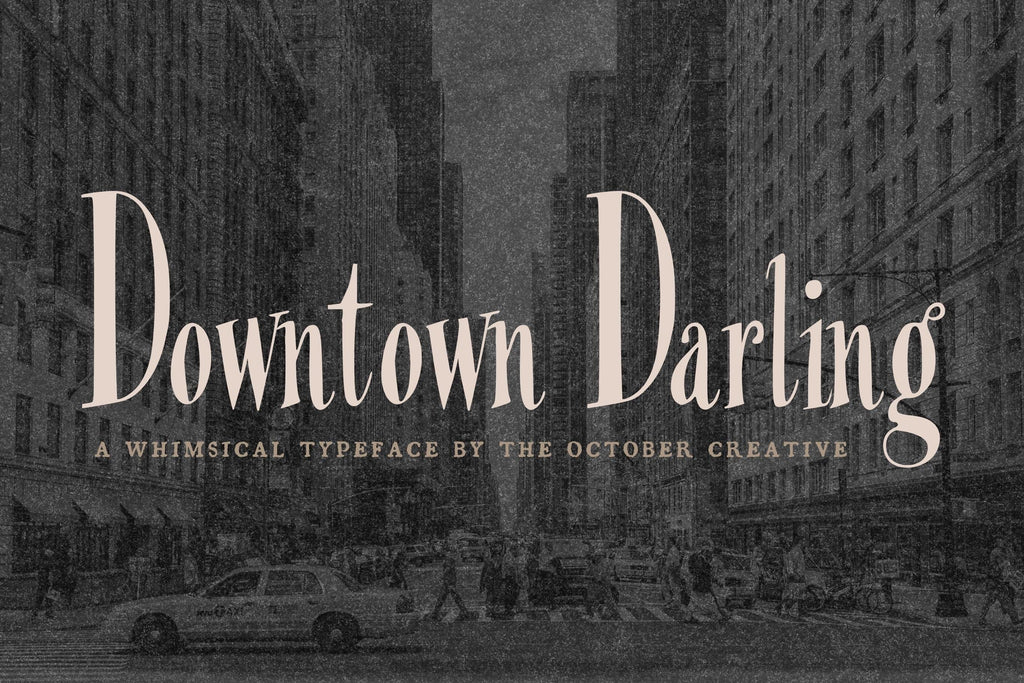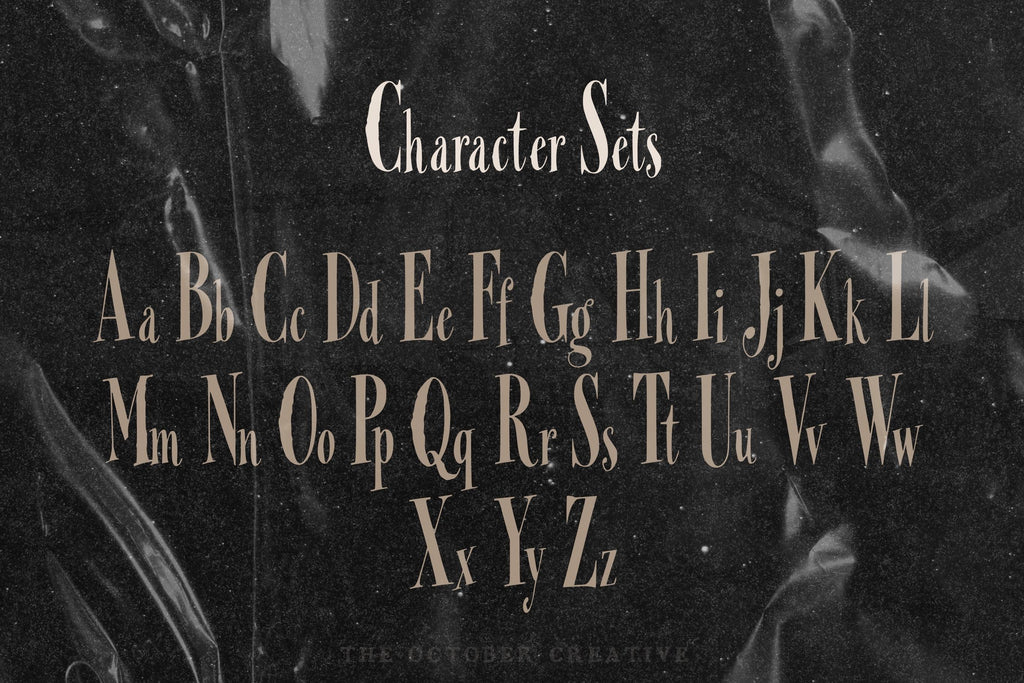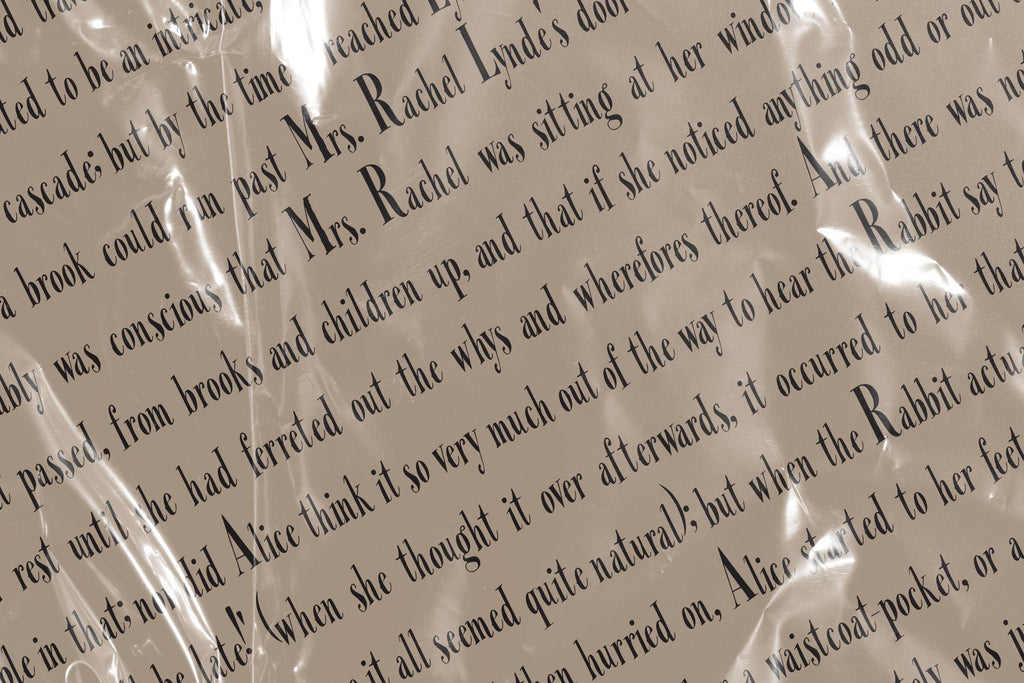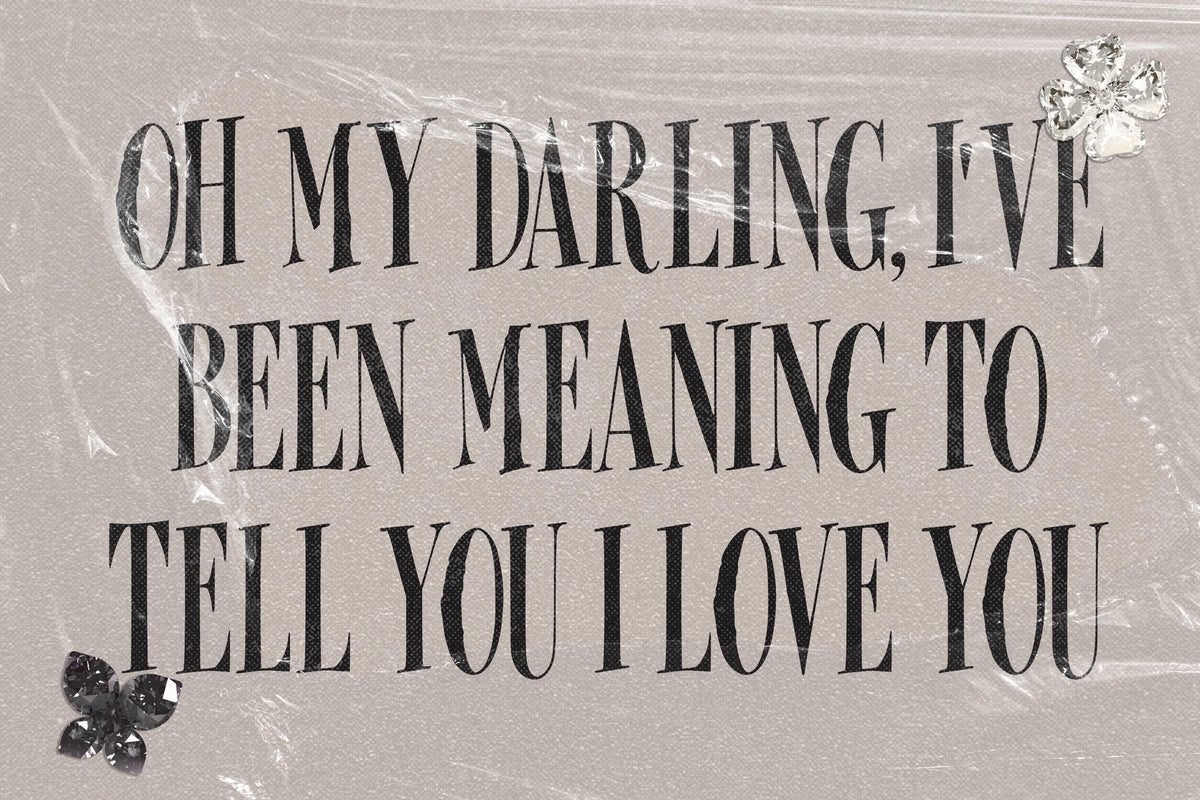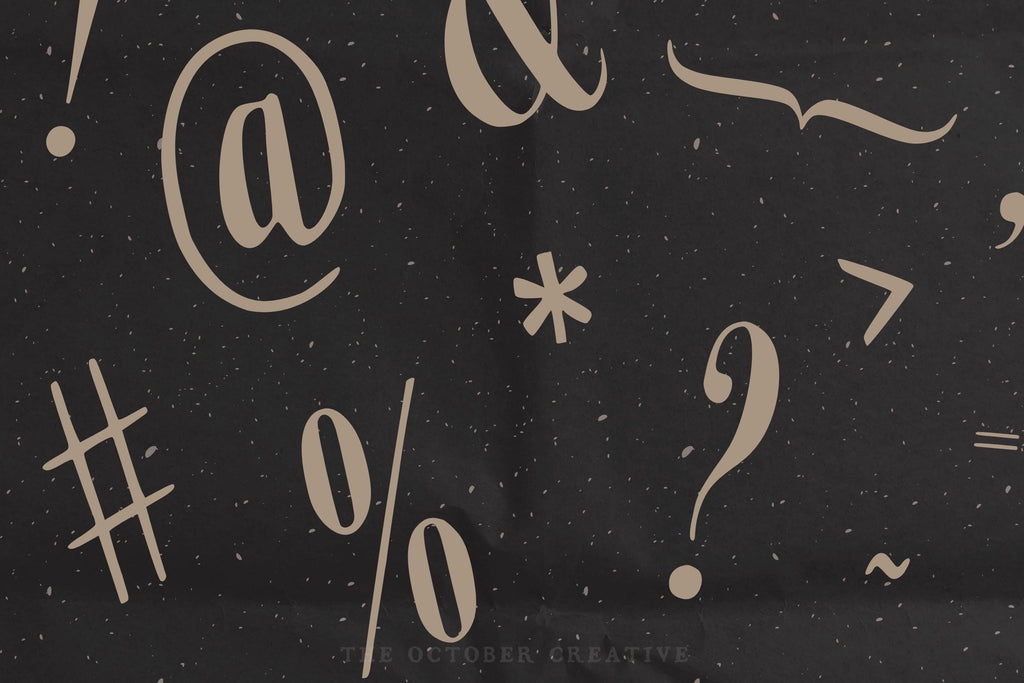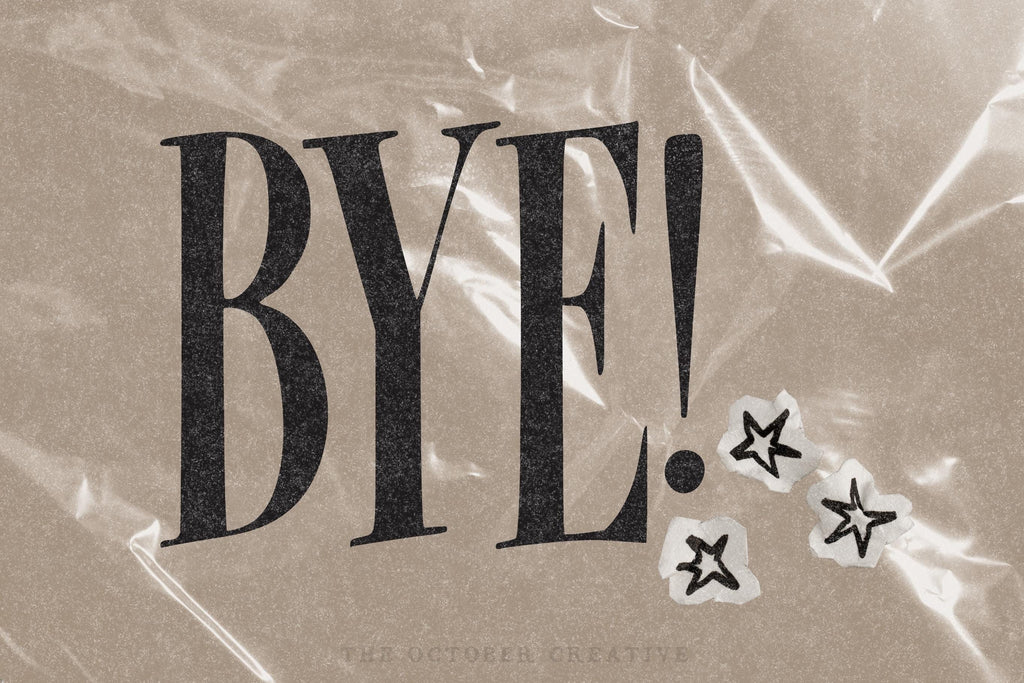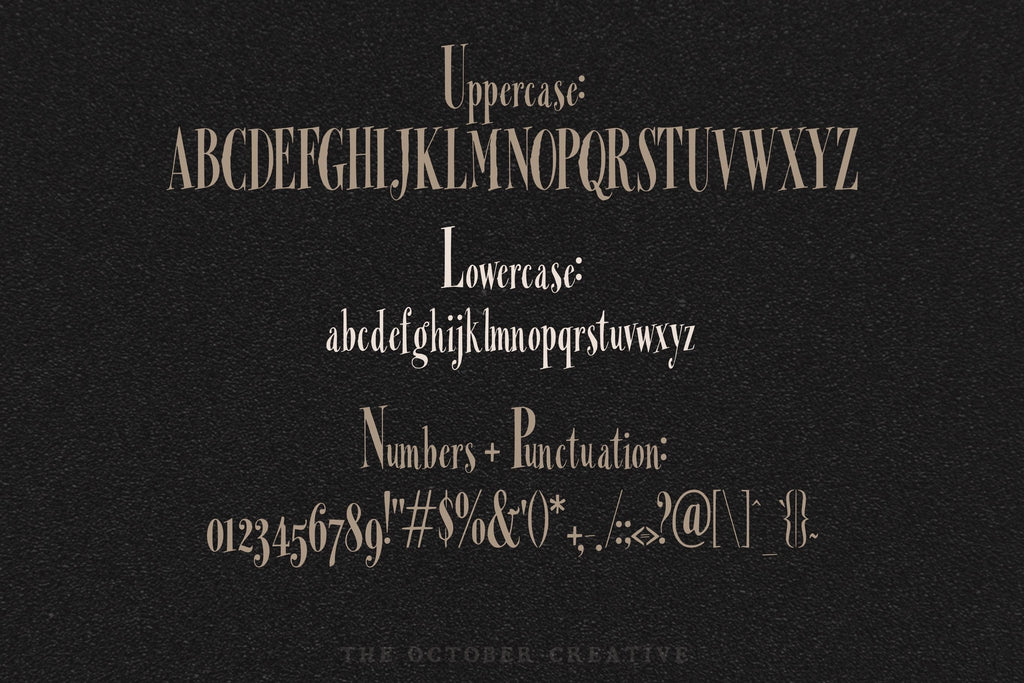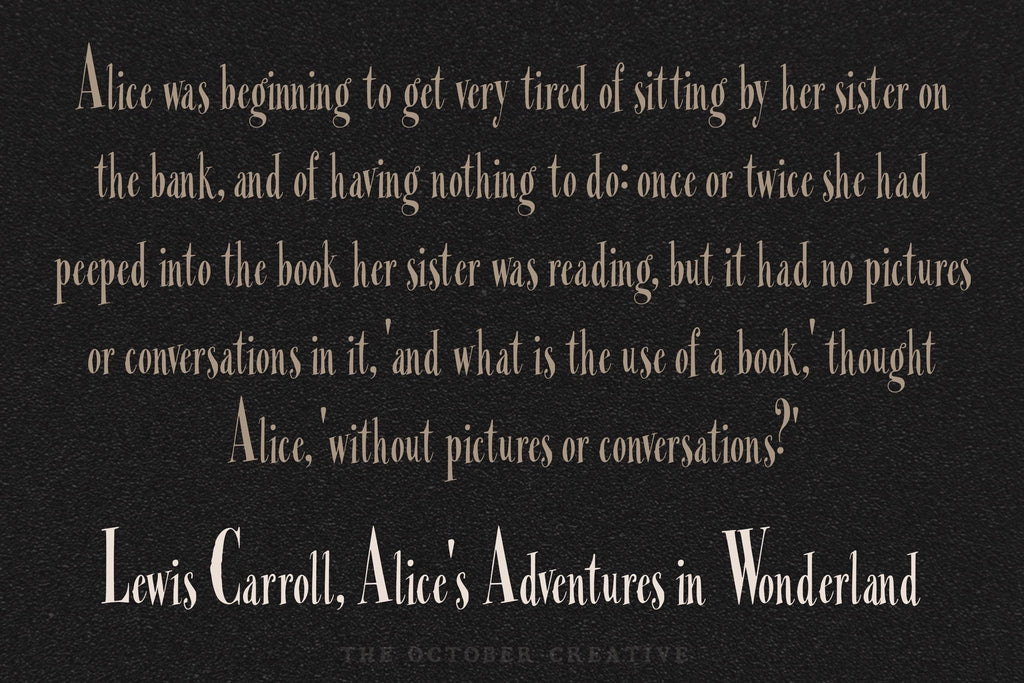
Downtown Darling Font
Downtown Darling is a condensed Art Deco serif with high contrast between its thick and thin strokes. It has an old New York editorial look for magazine covers, headlines, event posters, and fashion-style graphics.